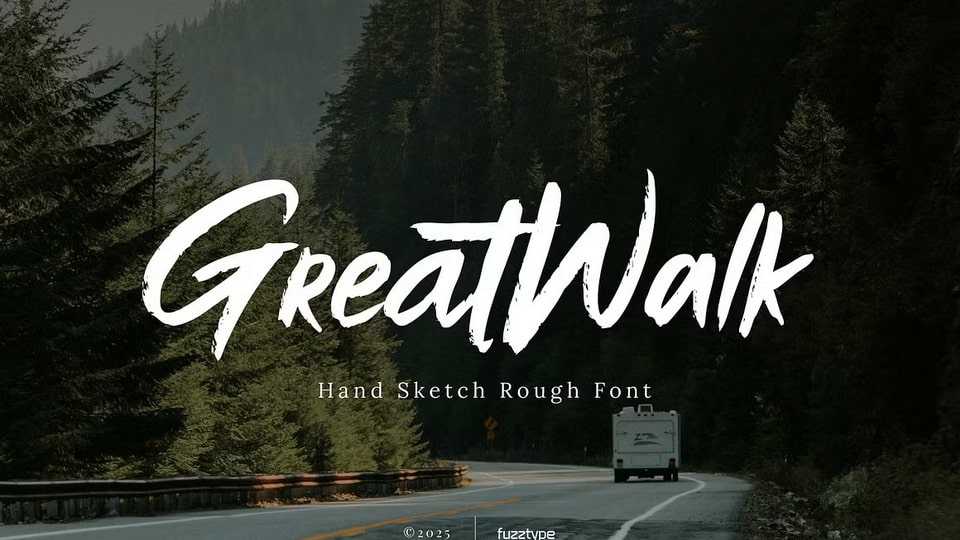
Download Greatwalk font, a bold and expressive hand-drawn script typeface with a raw, textured finish that brings your designs to life, inspired by the rugged charm of outdoor adventures.